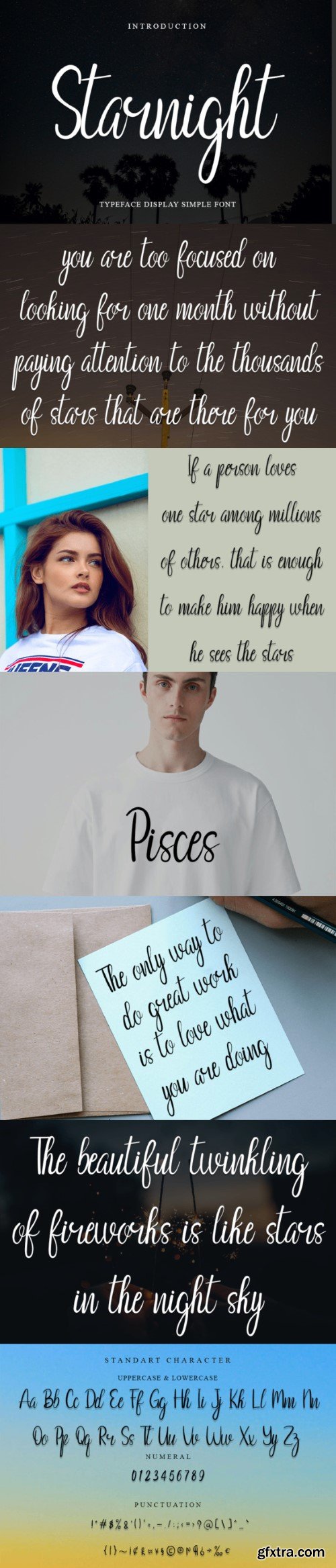
星空字体
Starnight is a beautiful and refined handwritten font. It has a classy, elegant, and modern look that can be used for logos, branding, invitations, stationery, wedding designs, social media posts, and much more!